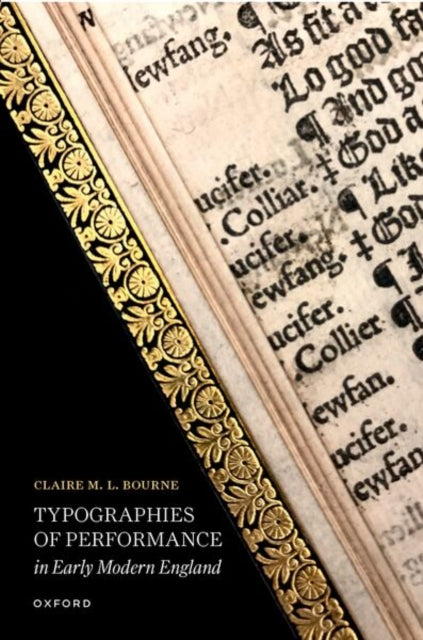
Explores typographic display and experimentation in printed play-texts from the fourteenth to the eighteenth centuries and interprets features of page display (particularly special characters, scene division, punctuation, and illustration) as a means of communicating and expressing aspects of dramatic performance to readers.